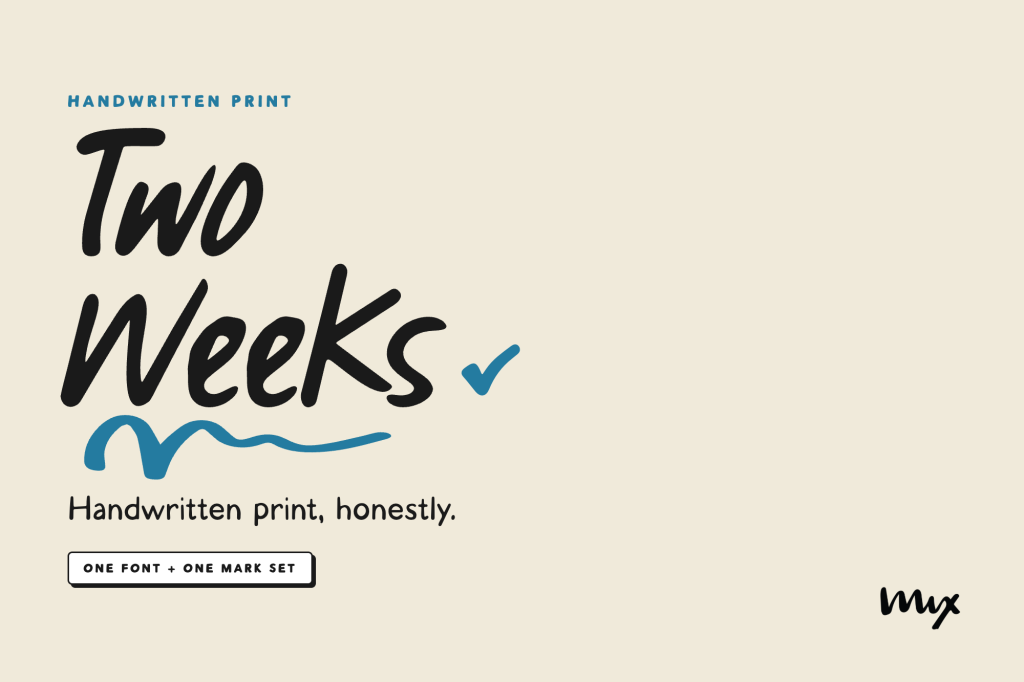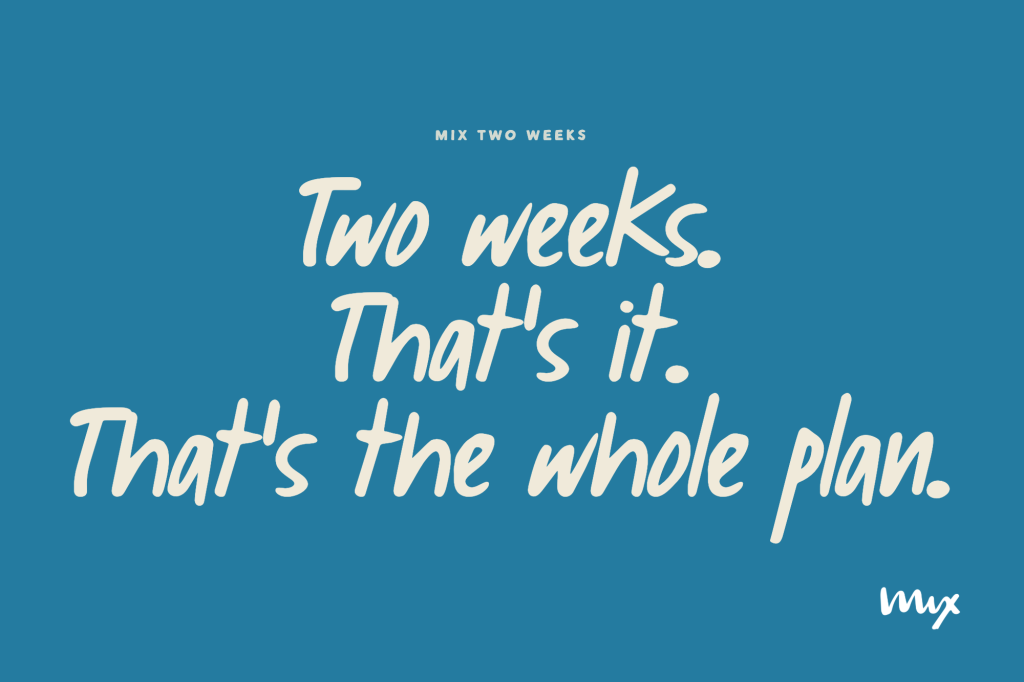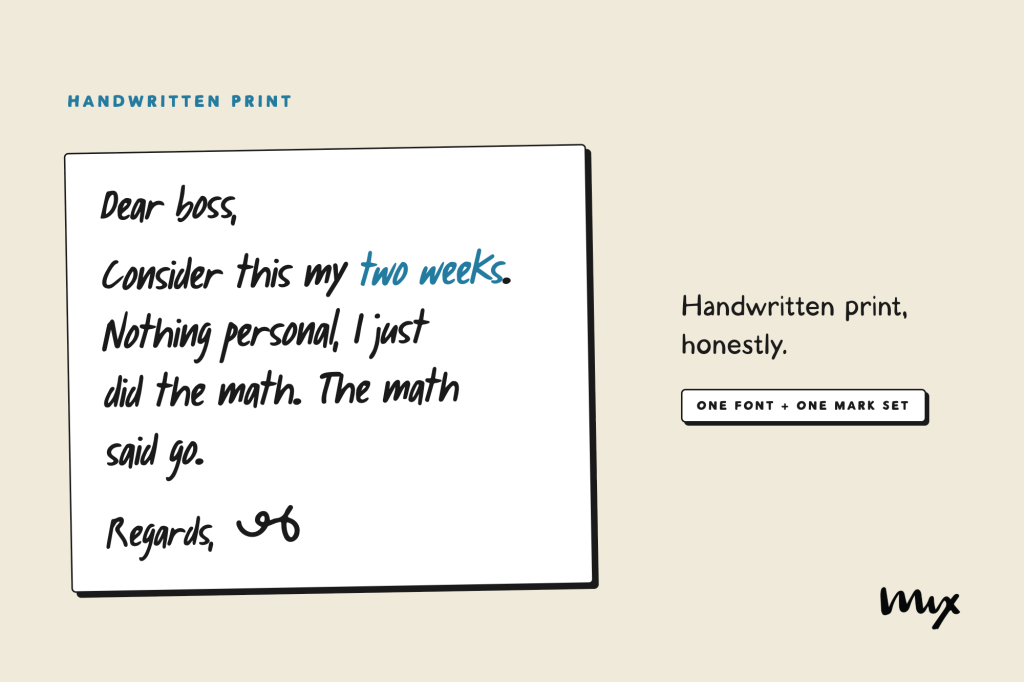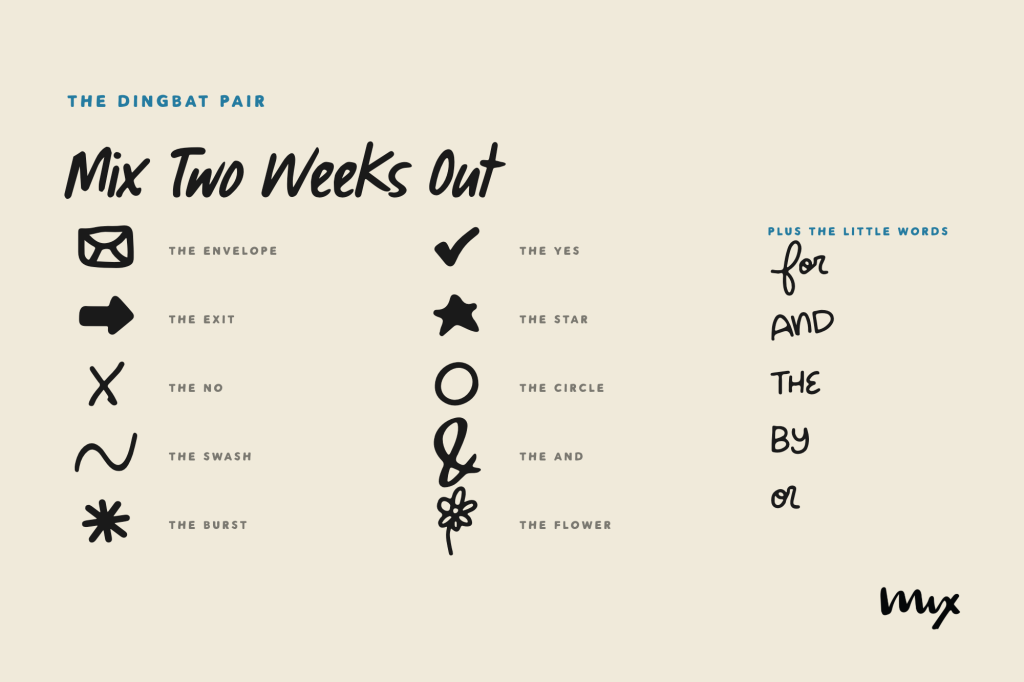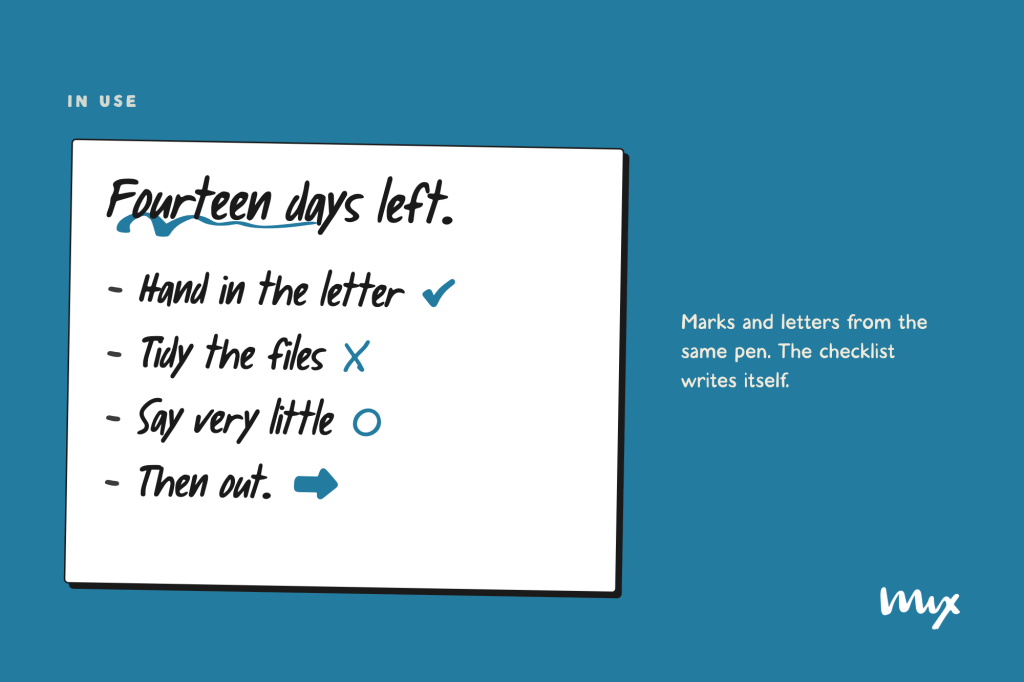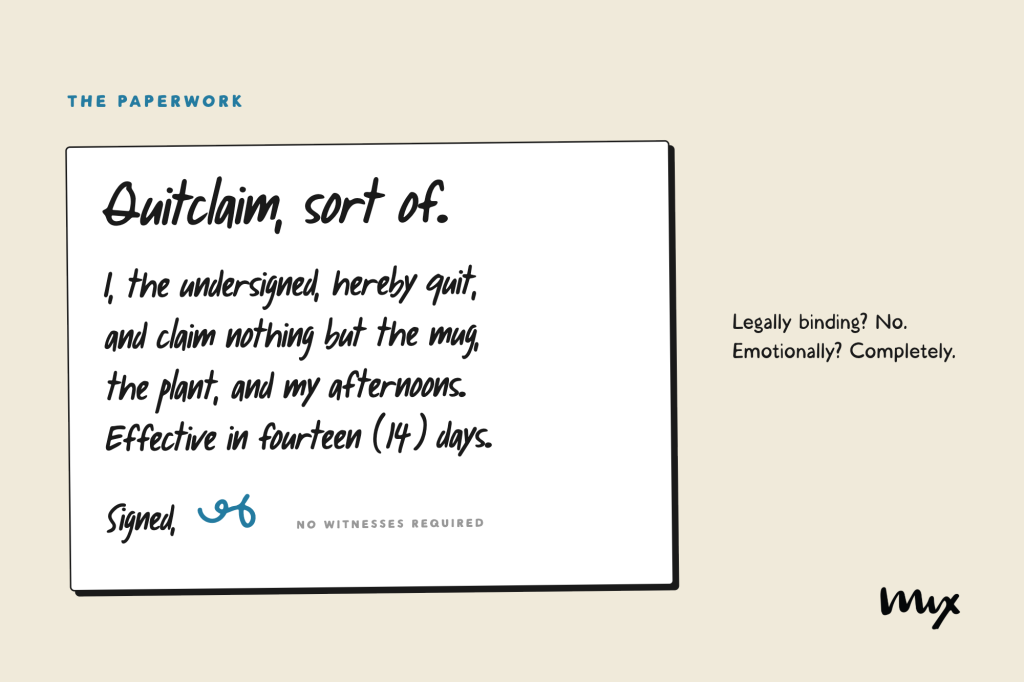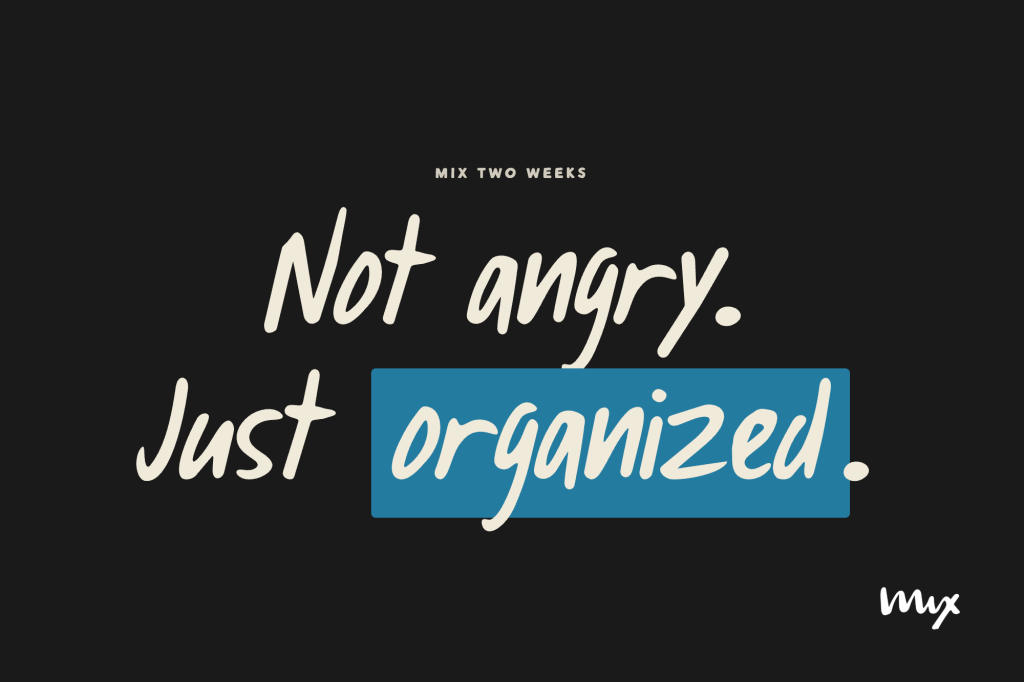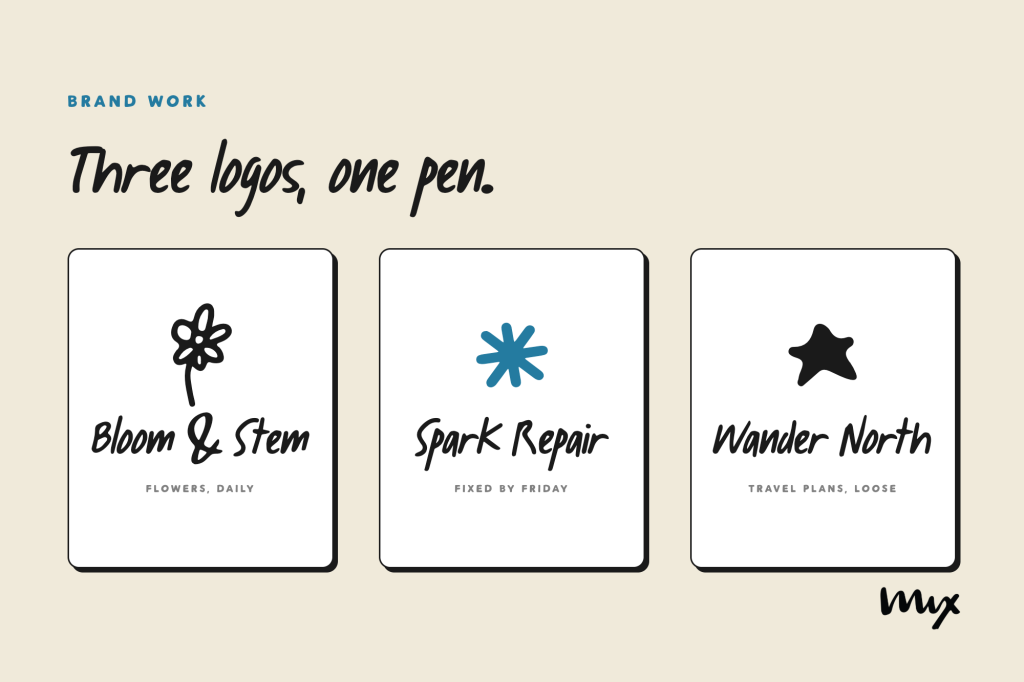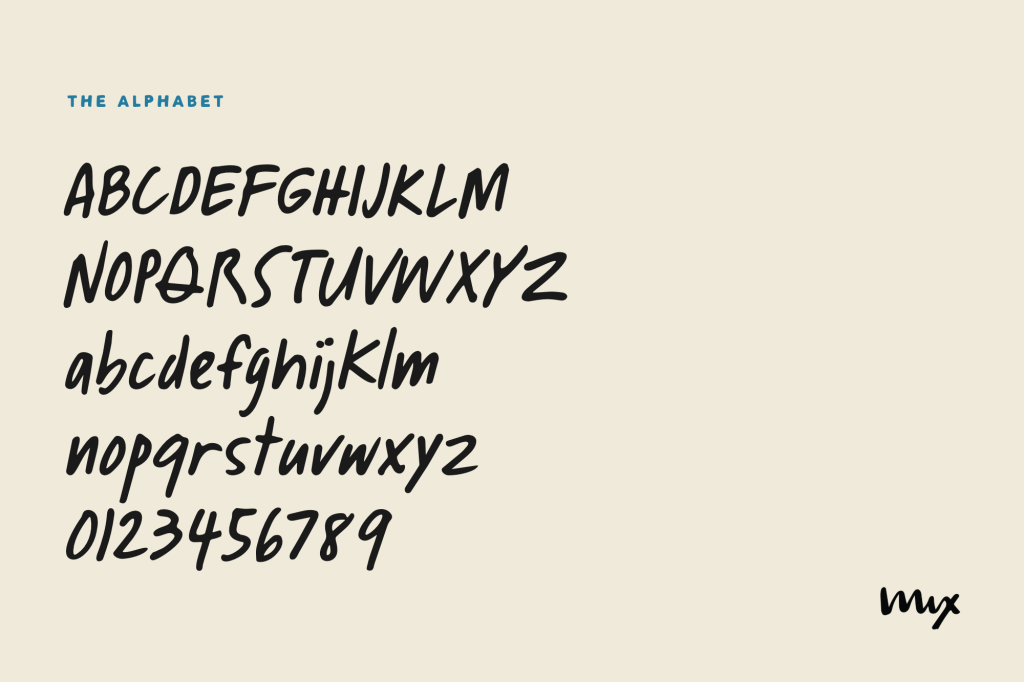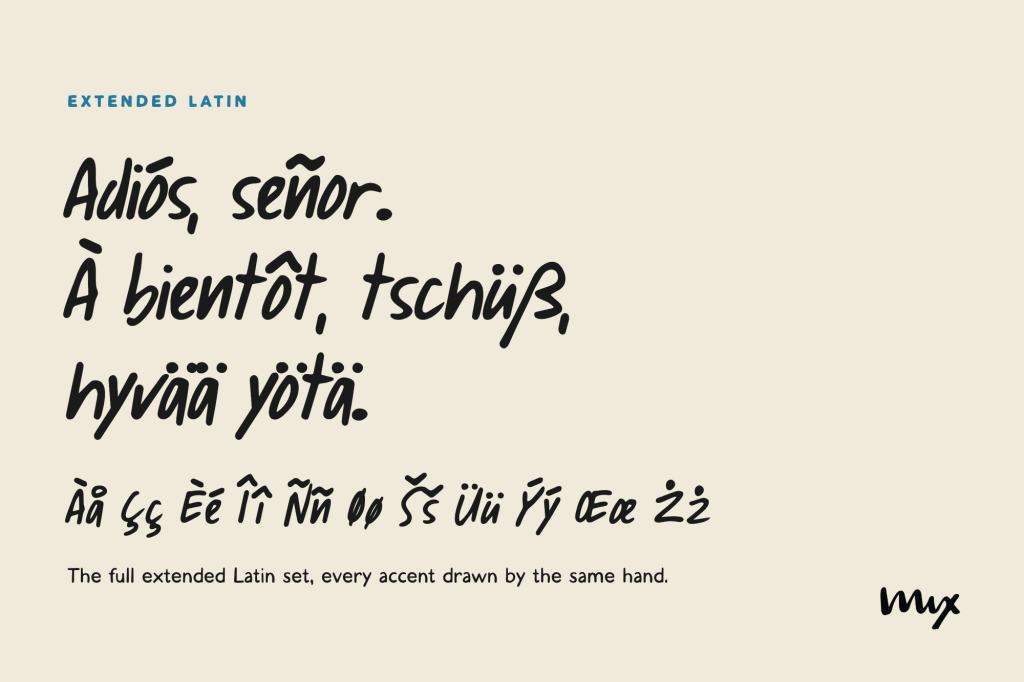
Mix Two Weeks is handwritten print, not cursive. Individual letterforms, an even slant, and the composed look of someone who has already decided something and is writing it down clearly. The capital S and Q carry the most personality, open curves rather than tight mechanical shapes.
It holds up at real paragraph length, not just in headlines. Full extended Latin support is included, so accented characters, currency symbols, and typographic punctuation are all there.
Comes with Mix Two Weeks Out, a companion set of hand-drawn marks: envelope, checkmark, exit arrow, star, X, circle, swash, burst, flower, and ampersand, plus hand-lettered connector words (for, and, the, by, or) for setting phrases naturally.
Made for: notes, signage, packaging, merch, social captions, checklists, and anything that should look written rather than typeset.